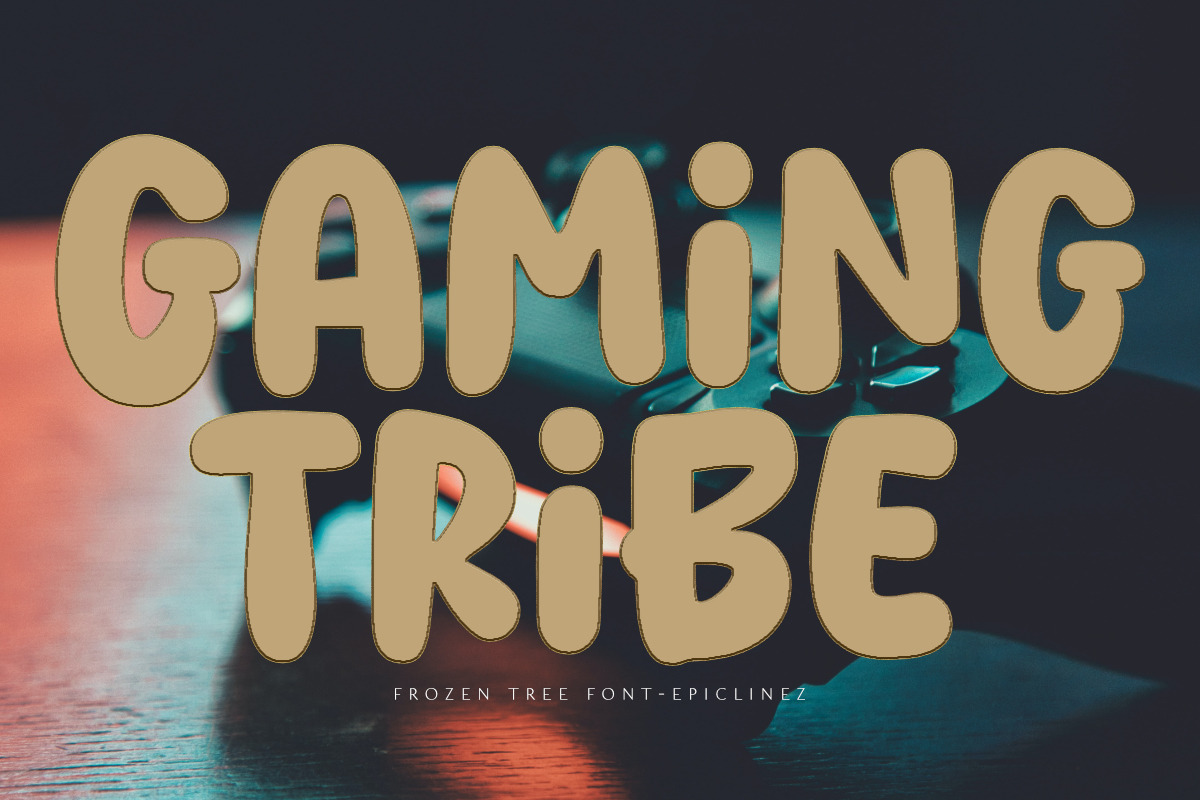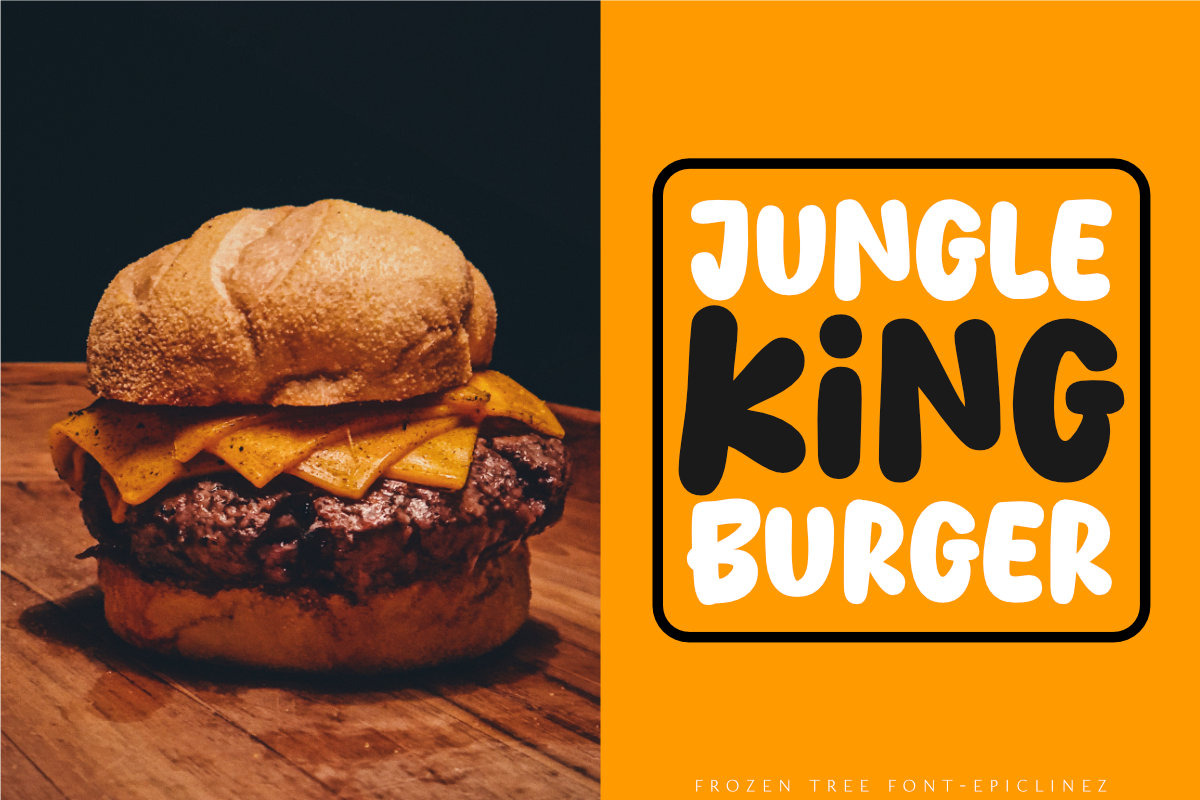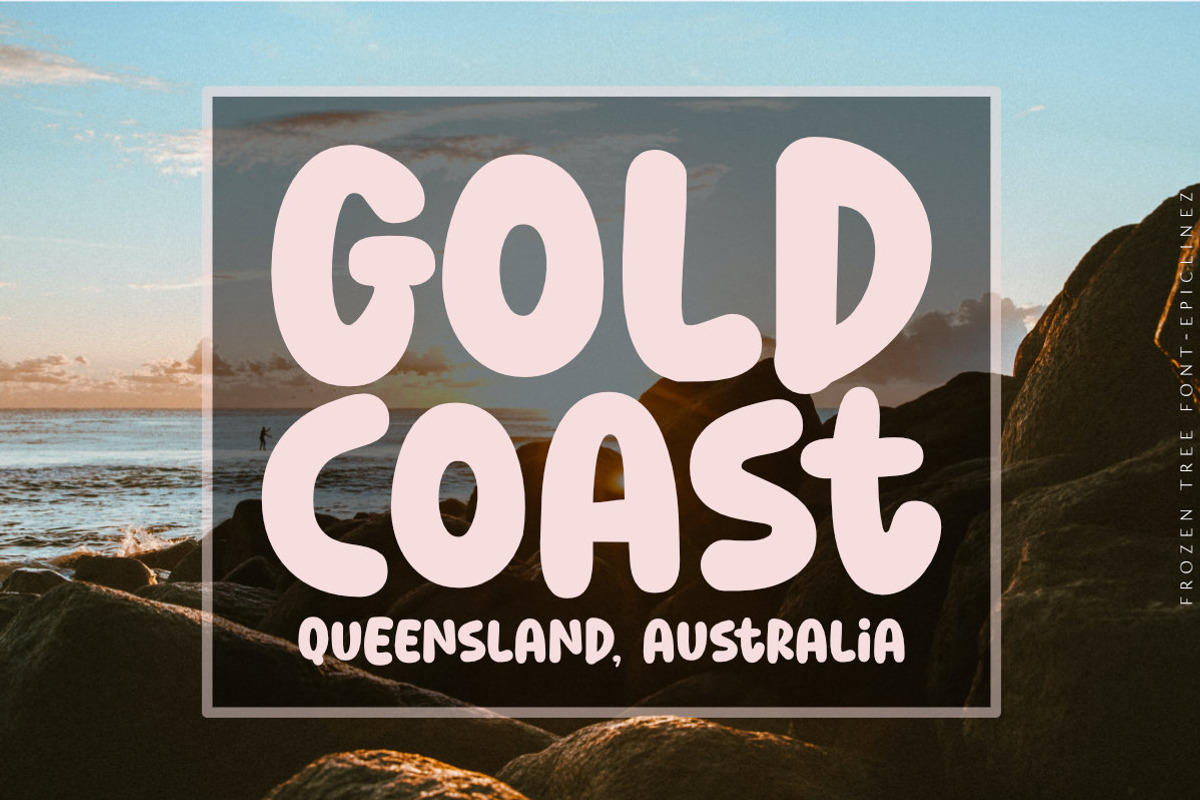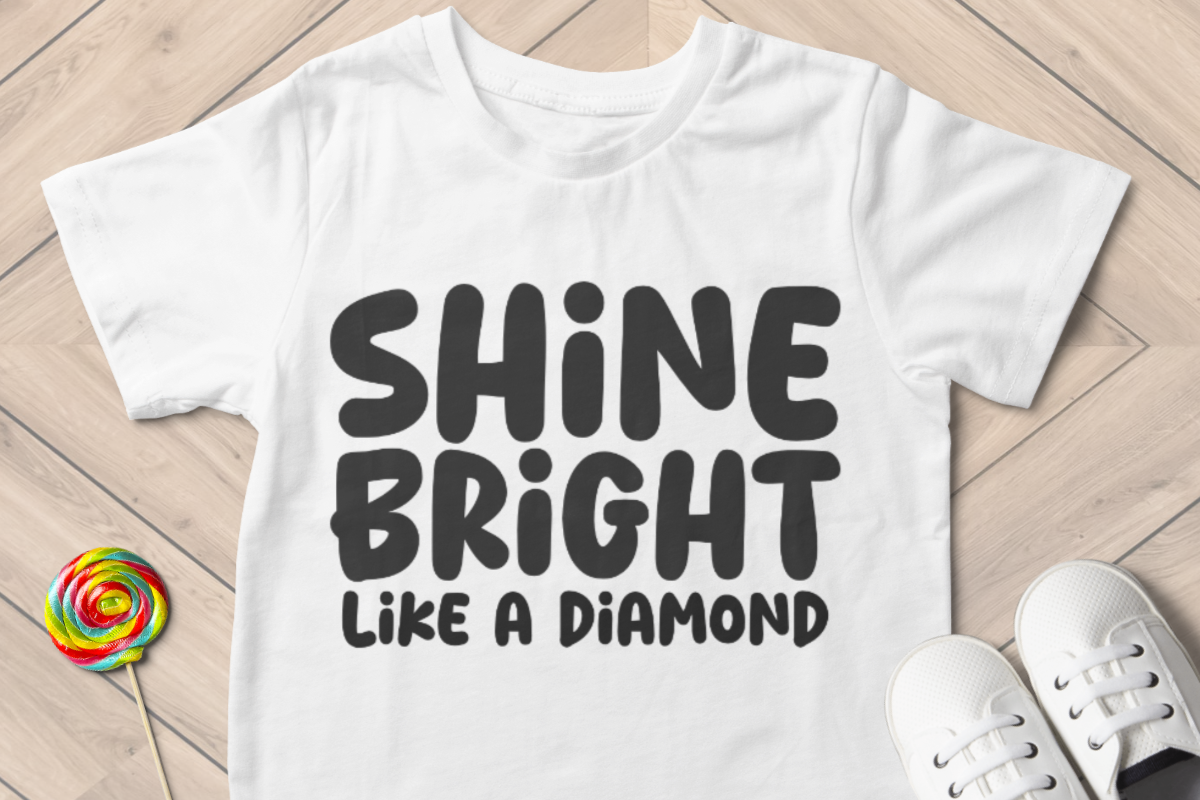
Frozen Tree
Frozen Tree is a thick lettered yet friendly display font. Whether you are using it for cartoon-related designs, children's games, quotes, titles, brand names, book covers, posters, or just any creation that requires a touch of joy, this font is a great choice. This font is supporting more than 66 languages, which include: Afrikaans Albanian Catalan Danish Dutch English Estonian Finnish French German Italian Norwegian Portuguese Spanish Swedish Zulu, and more.